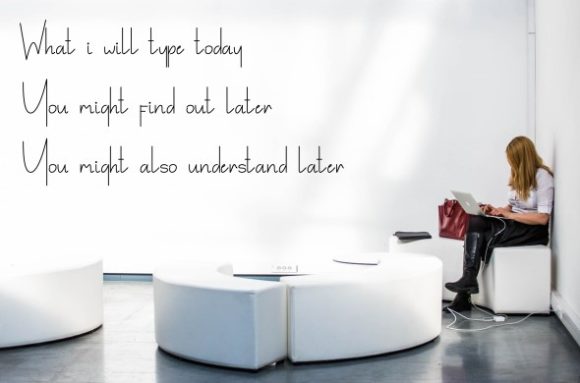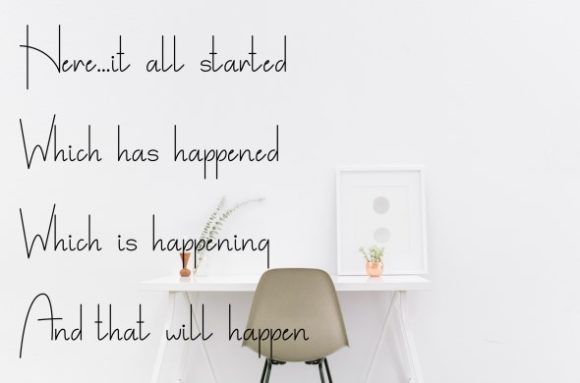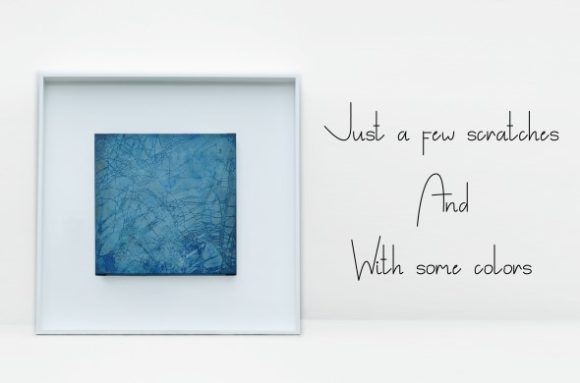
Introduction to Megumareta Font
Megumareta is a light and modern font.
Its beautiful curves and firm lines will make your designs look awesome .
Key Features of Megumareta Font
Why Choose Megumareta Font?
Megumareta Font offers exceptional quality and versatility, making it a valuable addition to your design toolkit. Whether you’re creating for personal projects or commercial use, Megumareta Font delivers professional results.